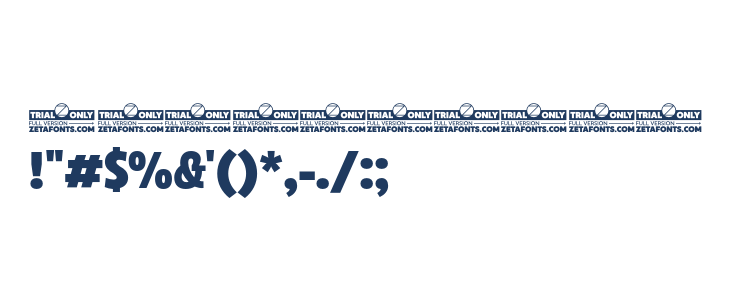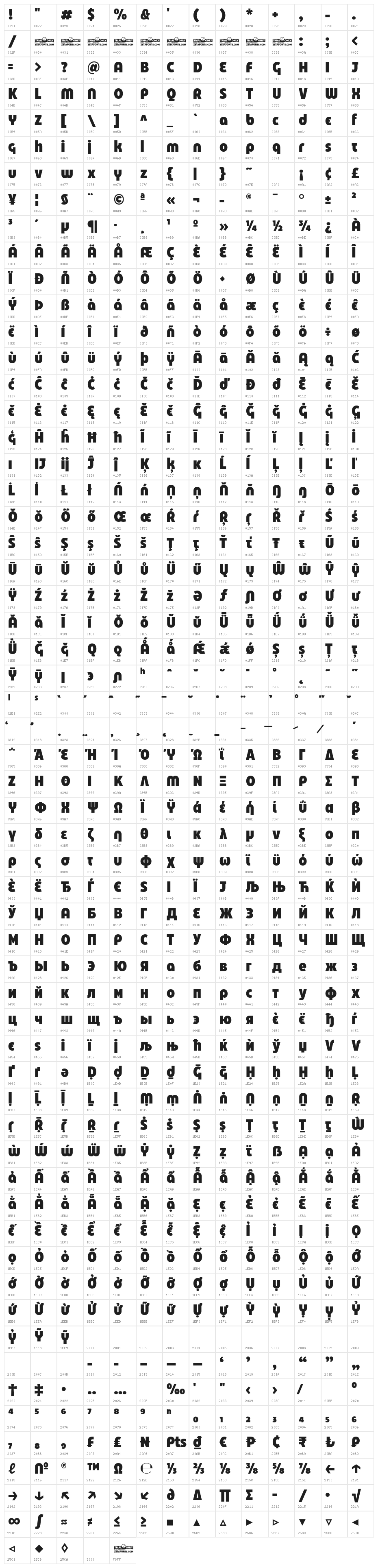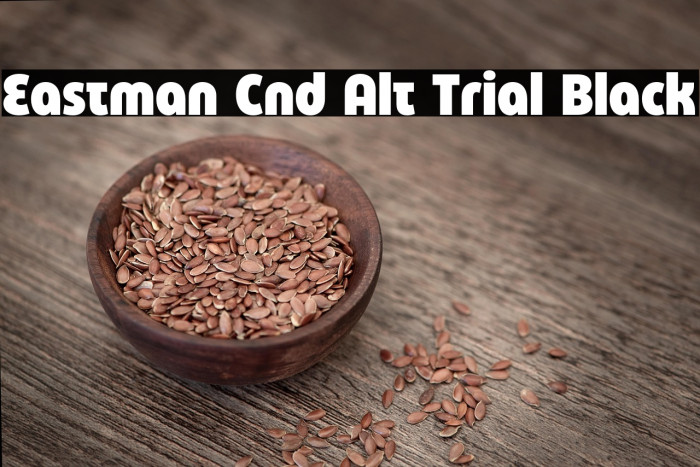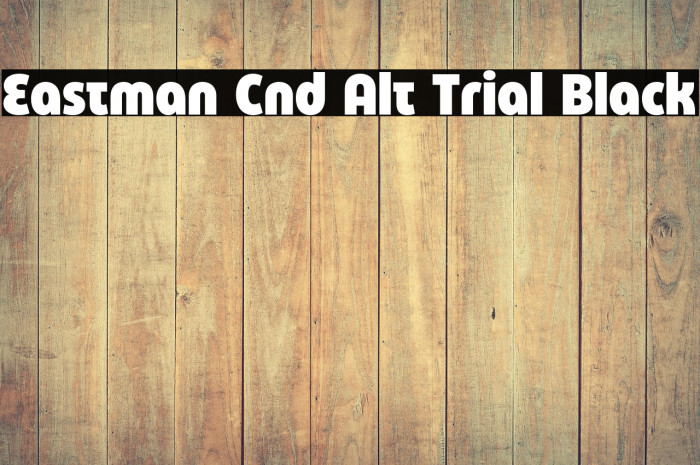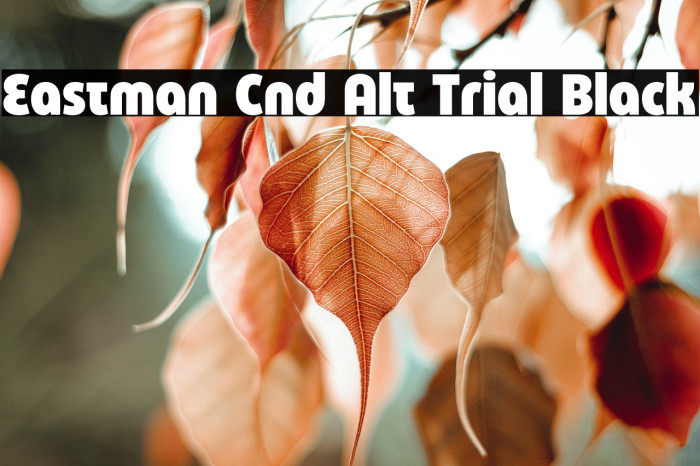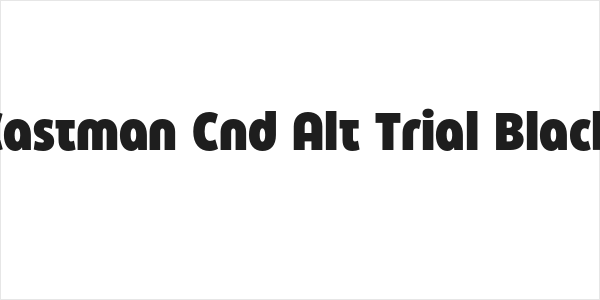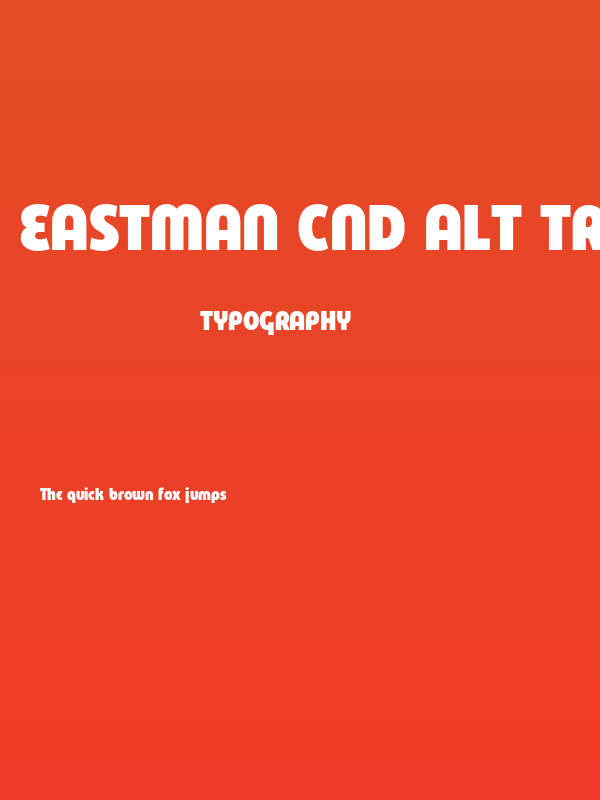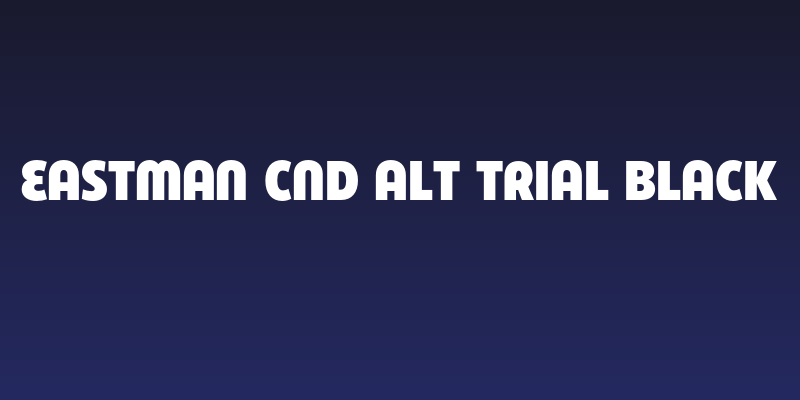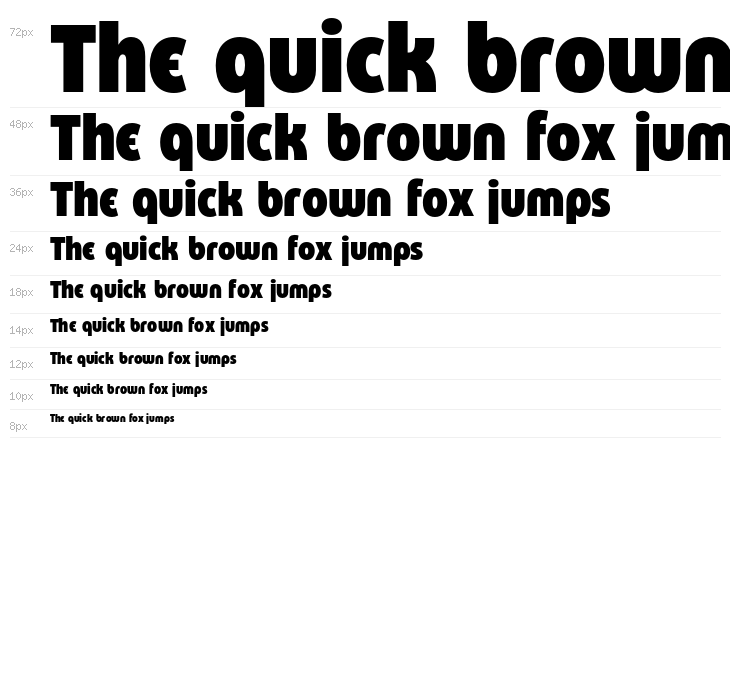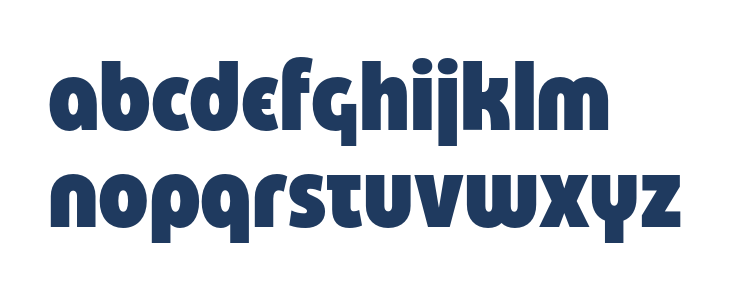
Eastman Cnd Alt Trial Black Font
Eastman Cnd Alt Trial Black Description
This font features a bold and striking design with a condensed width, making it ideal for impactful headlines and attention-grabbing displays. The characters are robust and have a geometric structure, with uniform stroke widths that contribute to a modern and clean aesthetic. The uppercase and lowercase letters maintain a consistent style, ensuring readability while adding a touch of uniqueness. The special characters and numbers are designed to complement the overall style, providing versatility for various design needs. Its bold presence makes it suitable for branding, posters, and any project requiring a strong visual statement.
Proposed ProjectsIdeal for branding, posters, headlines, and any design requiring a strong visual impact.